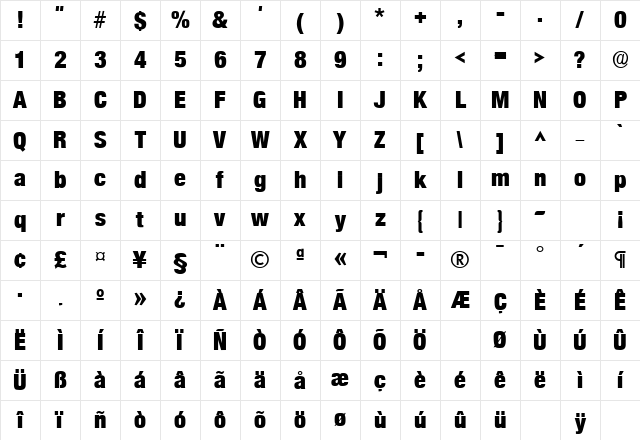
SansCondLH Bold Free Font
SansCondLH Bold
Design Context for SansCondLH
SansCondLH is a composed and adaptable typeface that performs quietly and consistently across a wide range of design contexts. Its bold stroke weight gives it real presence on the page. Its narrow stance lets it pack a punch even in space-constrained designs.